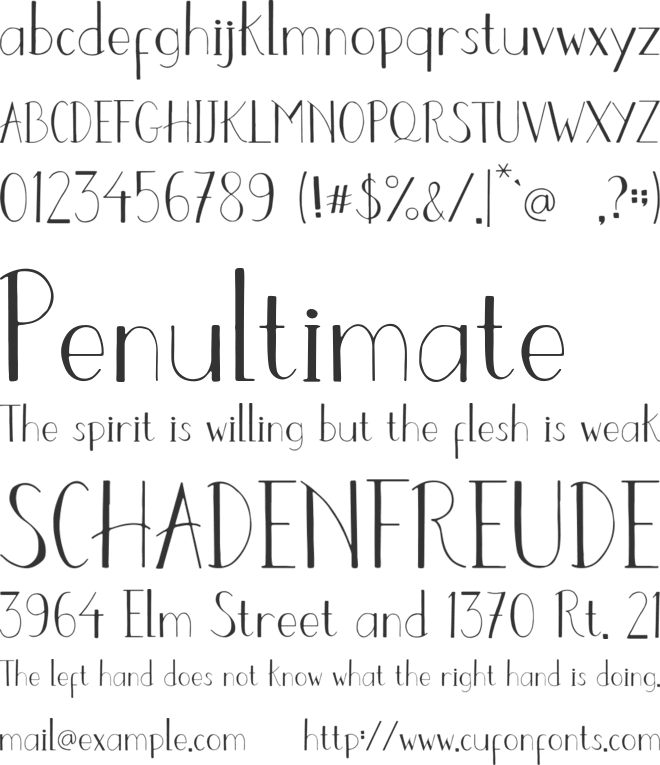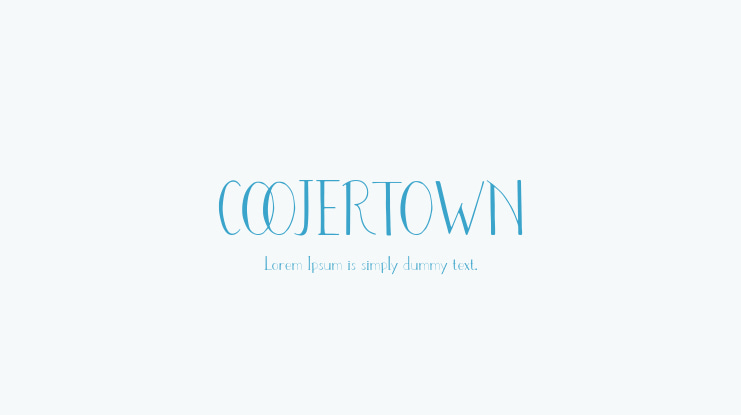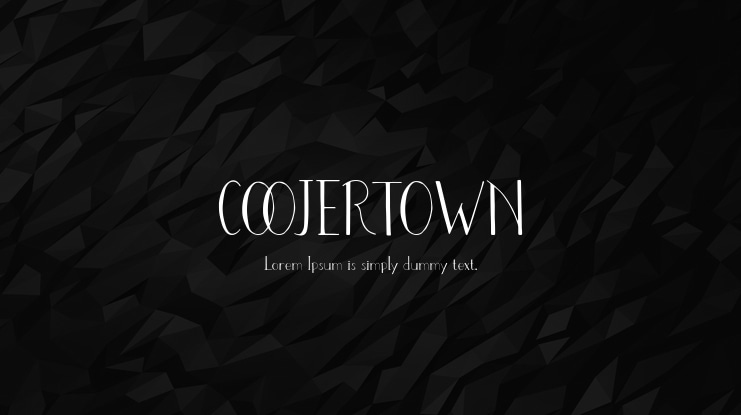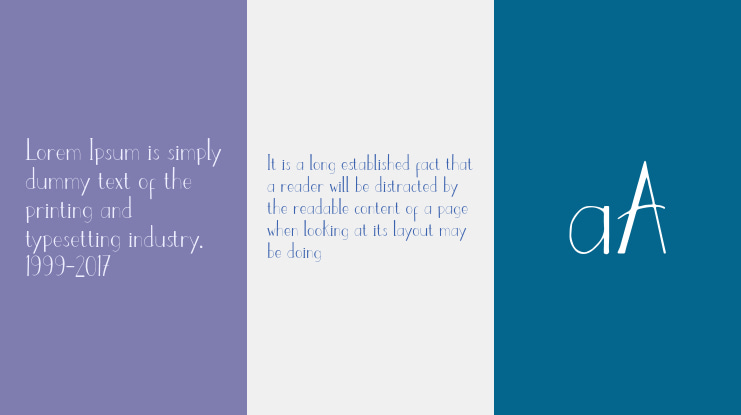
COOJERTOWN Font
Coojertown is an elegant condensed font, carefully crafted to create a stylish and classy designs.
Coojertown Font is perfectly fit for a wide pool of creative projects such as branding, logos, social media posts, invitations, greeting cards, letters and so much more. Let's show your creative mind to the world!